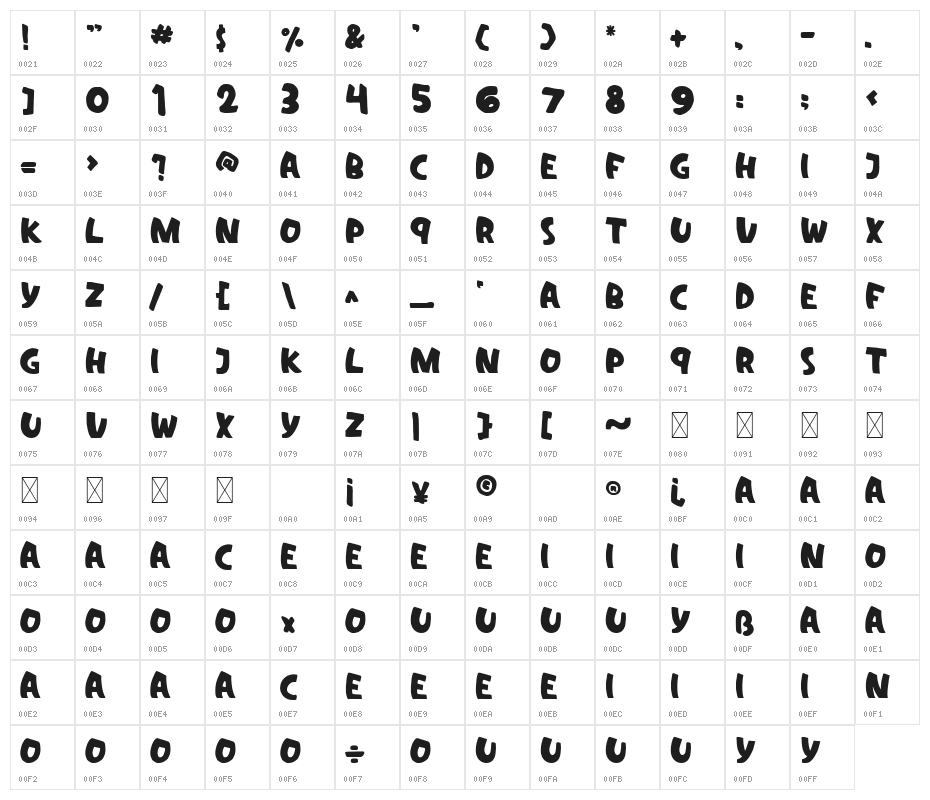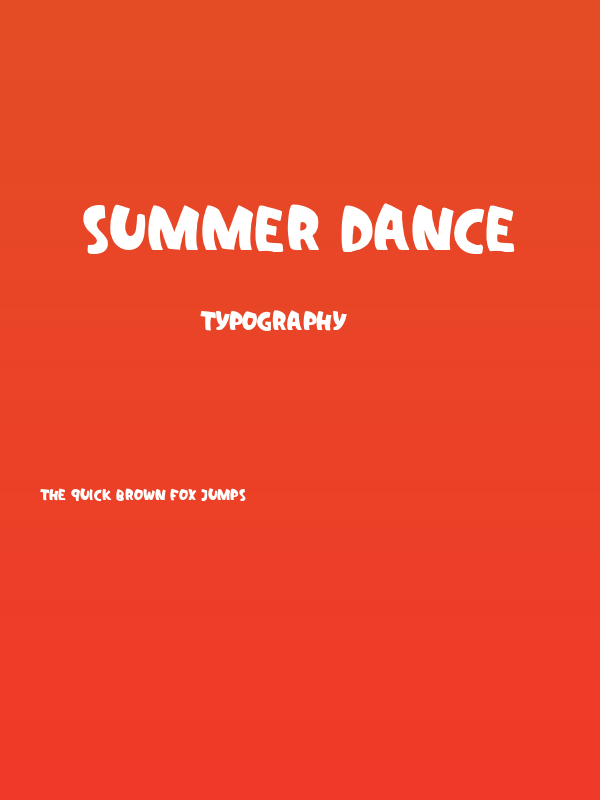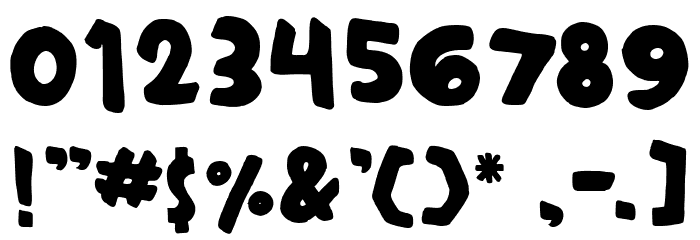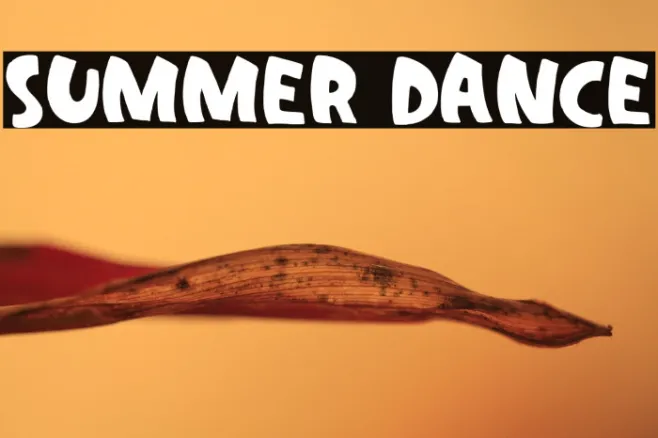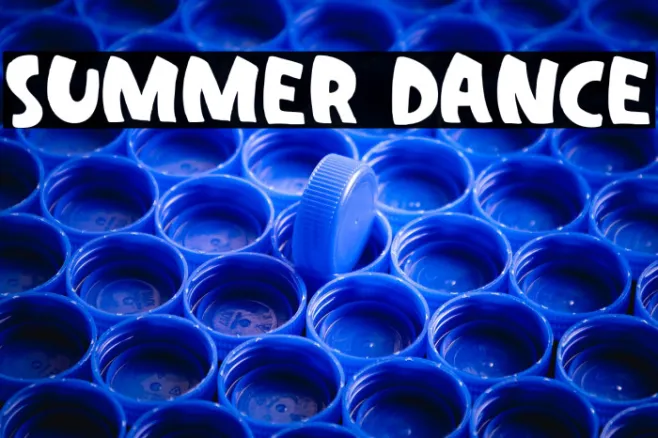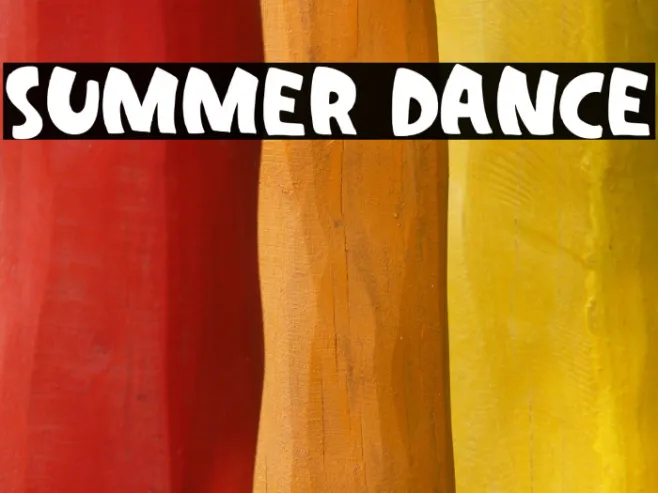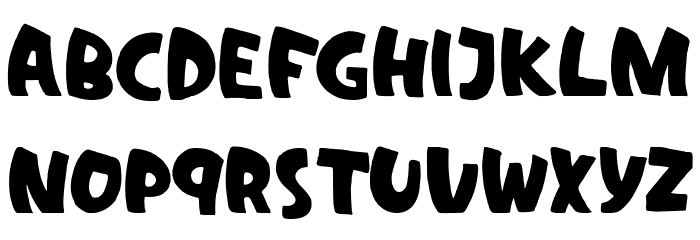
Summer Dance Font
Summer Dance Description
This playful and bold font exudes a sense of fun and energy, with its thick, rounded strokes and slightly irregular shapes. The characters are designed with a whimsical touch, making them appear lively and dynamic. The uppercase and lowercase letters maintain a consistent style, ensuring readability while adding a unique flair. Numbers and special characters are crafted with the same attention to detail, offering versatility for various design needs. The font's boldness and unique character shapes make it ideal for projects that require a standout, eye-catching typeface.
| Overall Style | Playful, Energetic |
| Proposed Projects | Ideal for children's books, playful branding, party invitations, and posters. |